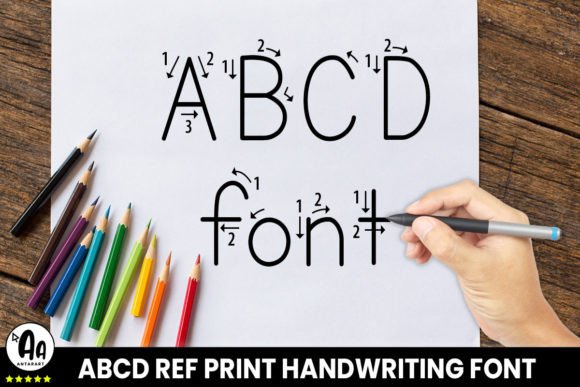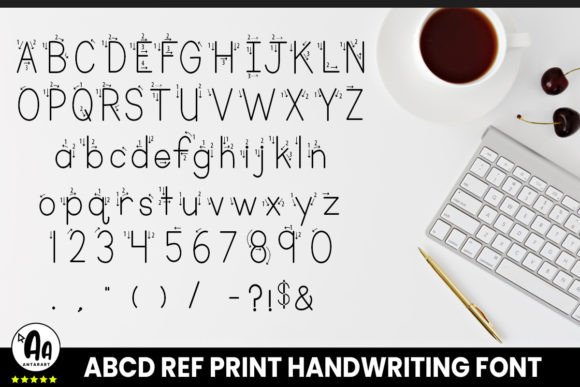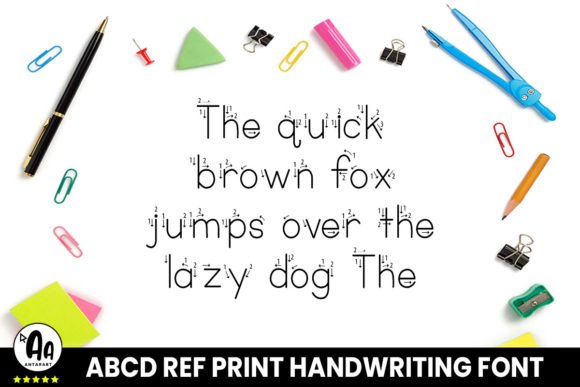
Discover the Fun in Learning with Abcd Ref Arrows Font
Do you remember the excitement of learning to read and write as a child? The thrill of holding a crayon in your hand, carefully tracing the curves and lines of letters on a page. For many of us, those early days of education were a time of wonder and discovery, and it’s a memory that stays with us long after we’ve grown up.
For educators and designers looking to bring that same sense of excitement to their students, the Abcd Ref Arrows Font is a game-changer. Based on the D’Nealian Method US school, this practical display font is designed to help create thousands of worksheets that make learning the print alphabet a fun and interactive experience. And for designers, the Abcd Ref Arrows Font is a valuable resource, offering a unique and engaging way to bring learning materials to life.
Abcd Ref Arrows Font Key Features
- Font Family: Abcd Ref Arrows, a unique and customizable font designed for creating arrows and references in documents.
- Customization Options: Features a range of arrow styles and customization options, including color, size, and direction, making it a versatile choice for designers.
Abcd Ref Arrows Font Review
Overall, I think Abcd Ref Arrows Font is a unique and attention-grabbing font that could be a great addition to any design project. ✨ One of the things that stands out to me is the creative use of arrows in the font’s design, which adds a fun and dynamic feel to any text it’s used with. ✨ The font’s clean lines and simple shapes also make it easy to read and understand.
That being said, there are a few limitations to consider. ⚠️ One of the main issues I have is that the font may be a bit too playful for some designs, and could potentially detract from the overall message or tone of the project. ⚠️ Additionally, the font’s limited character set may make it difficult to use in certain situations, such as for longer blocks of text or for text that requires specific punctuation or symbols.
- Unique and creative use of arrows in the font’s design
- Easy to read and understand due to clean lines and simple shapes
- May be too playful for some designs
- Limited character set
I would definitely consider using Abcd Ref Arrows Font in a design project where I want to add a bit of whimsy and fun. However, I would need to carefully consider whether the font’s playful nature and limited character set would be a good fit for the specific project.
Abcd Ref Arrows Font: A Practical Application Guide
Abcd Ref Arrows Font is perfect for creating visually appealing diagrams, flowcharts, and infographics. You can use it to highlight important information, create arrows and connections between elements, and add a touch of professionalism to your designs. Additionally, you can use it to create eye-catching headings and titles that grab the reader’s attention.